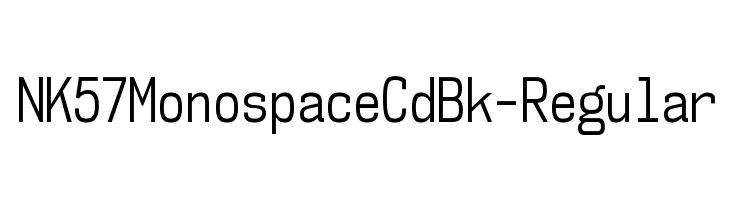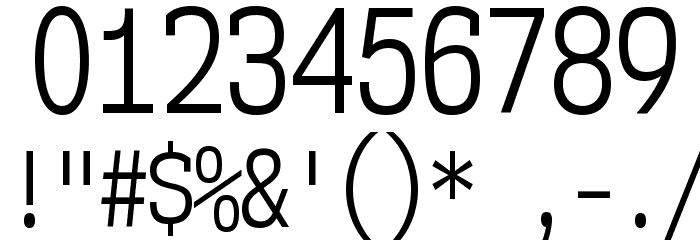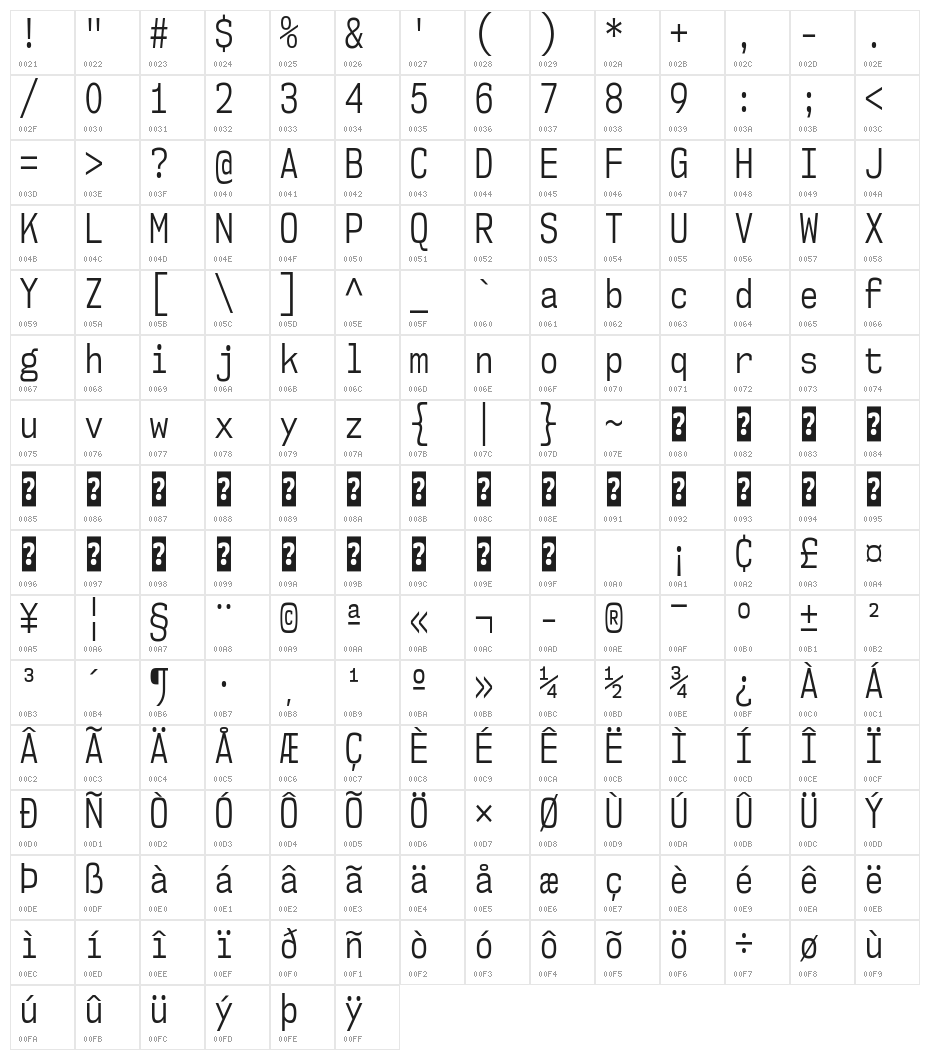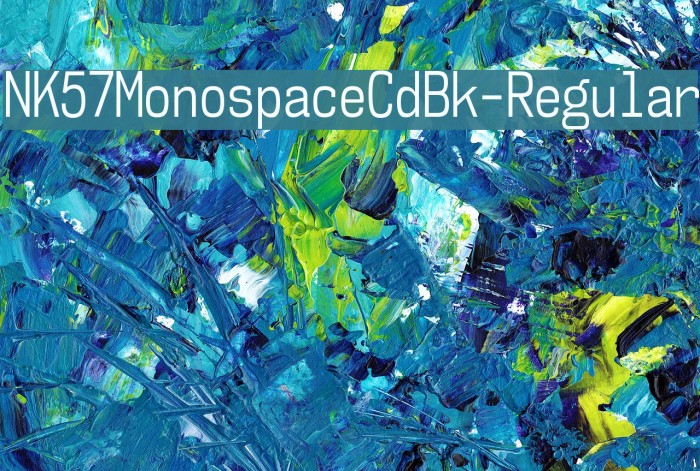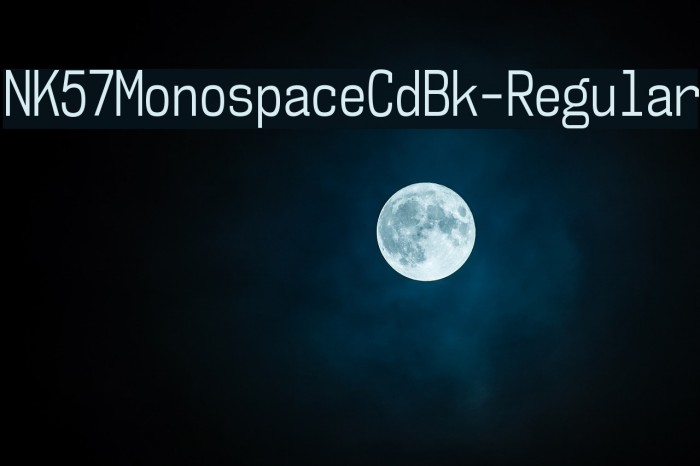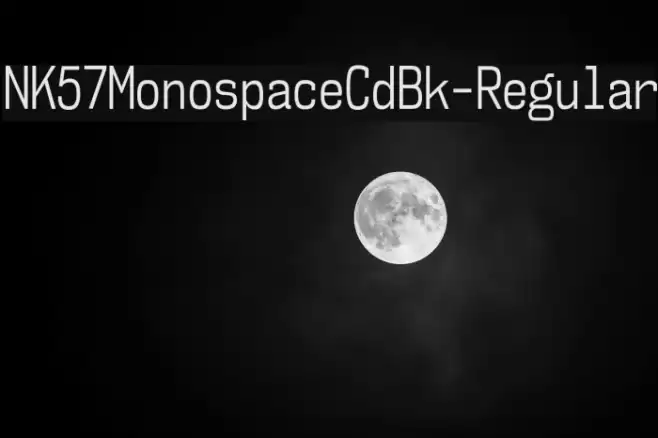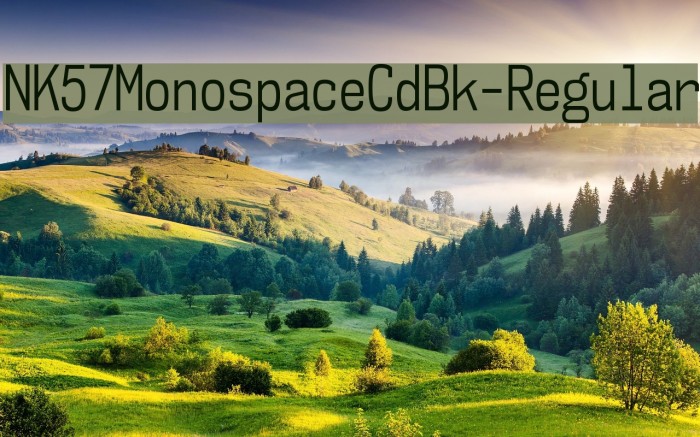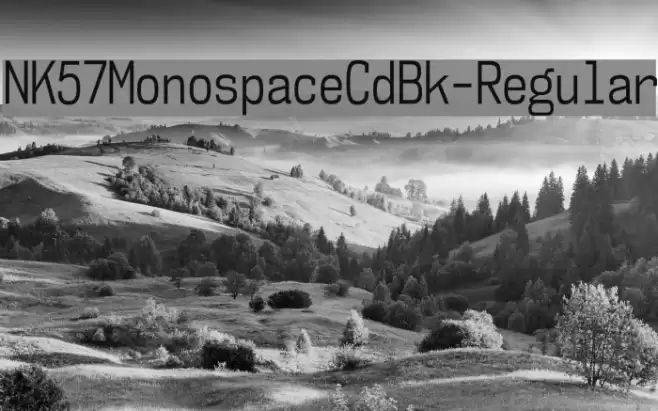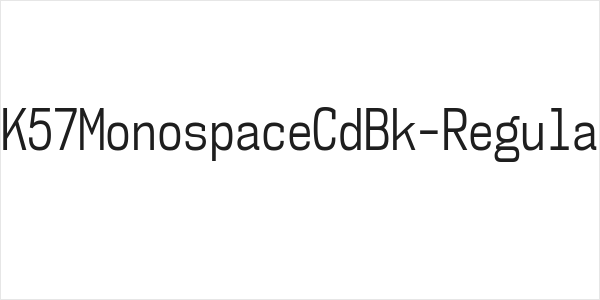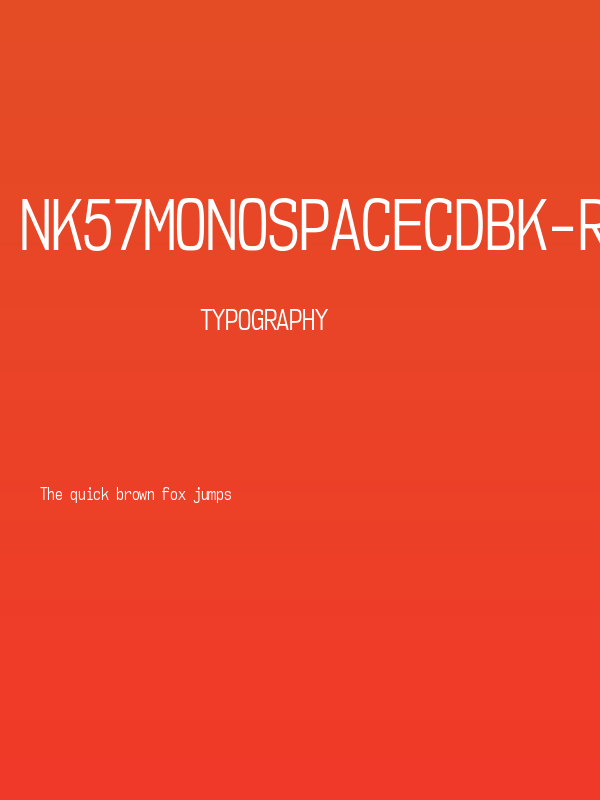
NK57MonospaceCdBk-Regular Font
NK57MonospaceCdBk-Regular Description
This font features a clean and modern design with a monospaced structure, ensuring each character occupies the same amount of horizontal space. The characters are crafted with a geometric precision, offering a balanced and uniform appearance. The uppercase and lowercase letters maintain a consistent height, contributing to its readability and efficiency in coding or tabular data. The numerals are clear and distinct, making them easily distinguishable. The special characters are well-defined, enhancing the font's utility for technical and professional applications.
| Use Case | Coding, Technical documentation, Data tables |
| Proposed Projects | Ideal for coding environments, technical documentation, data tables, and any project requiring precise alignment. |